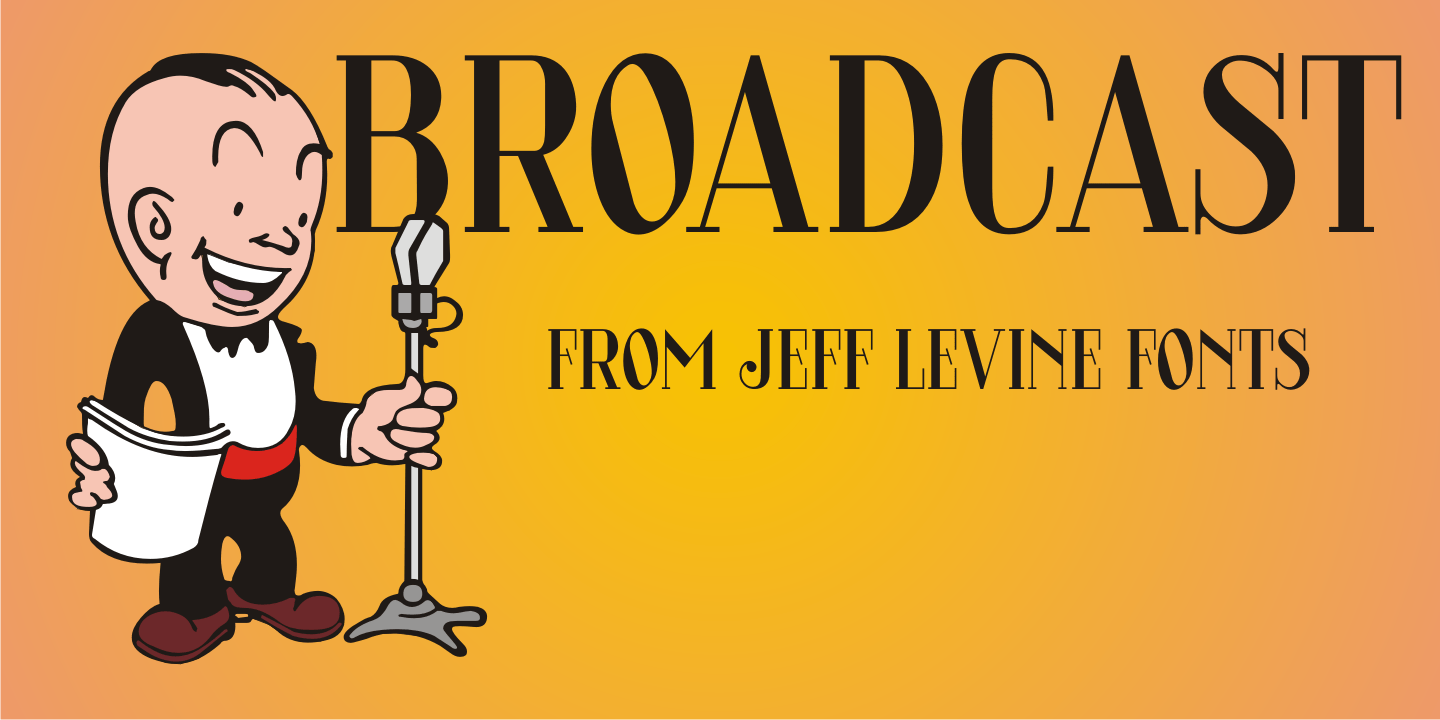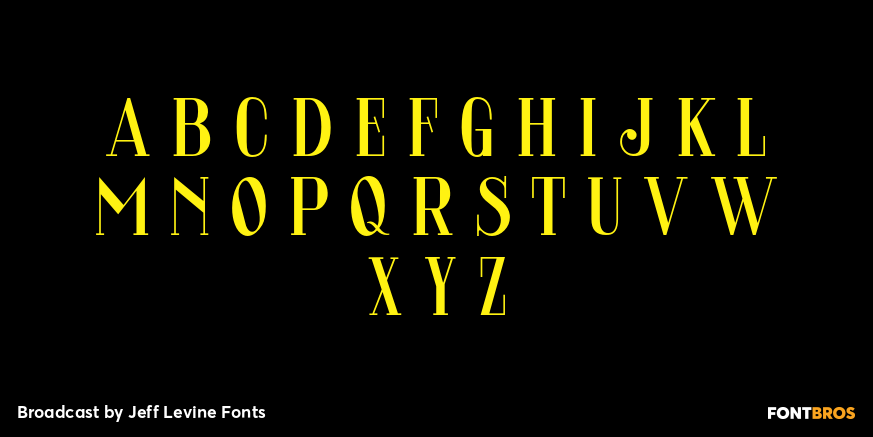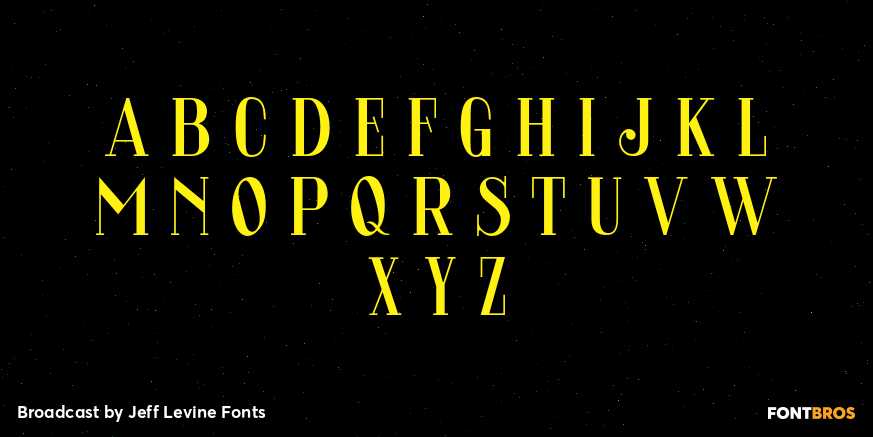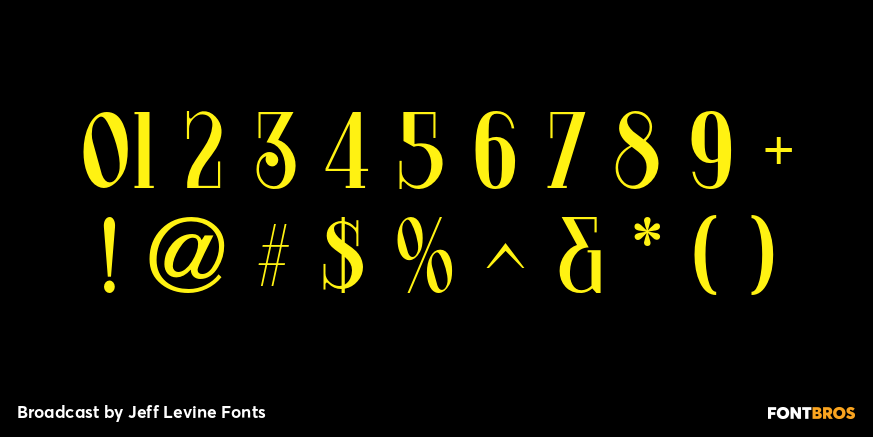
Broadcast
The vast resource of hand lettered vintage sheet music titles offers many interesting and unique variations on even the simplest styles of lettering.
A simple thick-and-thin serif design circa the 1920s-1930s evokes a reminiscence of the Art Nouveau period combined with a touch of what was to come during the Art Deco era.
Most charming is the fact this lettering is free of the formal rules and constraints of metal type, where designers are generally forced into conformity with uniform stroke widths, serif placements and character shapes.